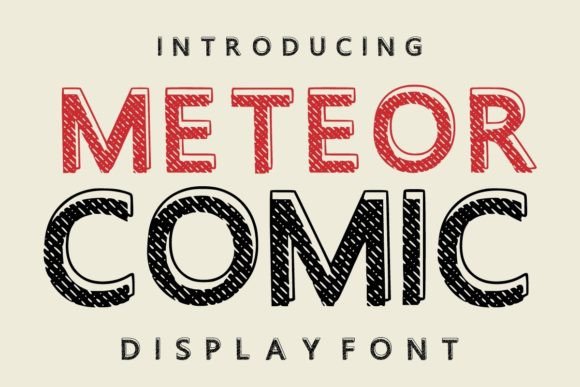
Immerse yourself in the captivating world of Meteor Comic Font, an enchanting ode to vintage aesthetics, where classic elegance meets bold modernity, unveiling a visual spectacle that ignites creativity and captures hearts. Embark on a typographic journey through time, where the essence of retro and the energy of contemporary design converge, giving birth to a font that transcends boundaries.
Unleash your imagination with Meteor Comic Font, a versatile virtuoso that effortlessly adapts to a symphony of creative endeavors. Weave your words into compelling blog posts that captivate readers with a blend of nostalgia and innovation. Craft logos and branding elements that exude a timeless allure, leaving an indelible mark on the minds of your audience. Let your designs sparkle with brilliance, whether it's eye-catching ads, heartfelt invitations, or greeting cards that resonate with warmth and charm.
Step into a world where every letter is a masterpiece, every word a work of art. Whether you're designing planners that inspire productivity, photo albums that preserve precious memories, or decorations that transform spaces into enchanting realms, Meteor Comic Font is your trusted companion, elevating your creations to new heights of visual artistry. This font is an ode to nostalgia, a tribute to the past, and a celebration of the present, inviting you to leave an indelible mark on the world through your creative endeavors. It's a font that speaks to the soul, evoking emotions that transport you to another era while maintaining a firm grip on modernity.
With Meteor Comic Font, your designs will transcend the ordinary, captivating audiences with its timeless appeal and magnetic charm. Whether you're a seasoned designer or just starting your creative journey, this font will ignite your imagination and unleash a torrent of ideas. Dive into the realm of Meteor Comic Font today and let your creativity soar to unprecedented heights.